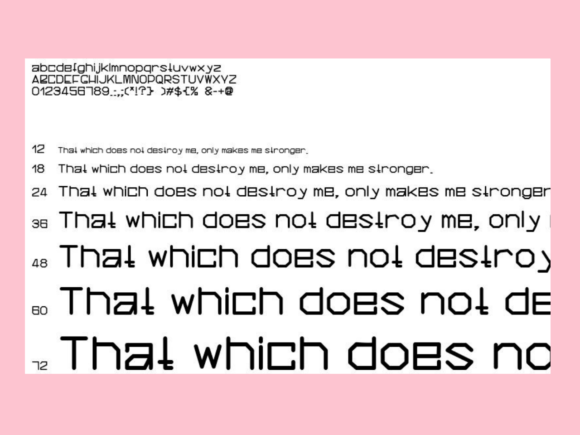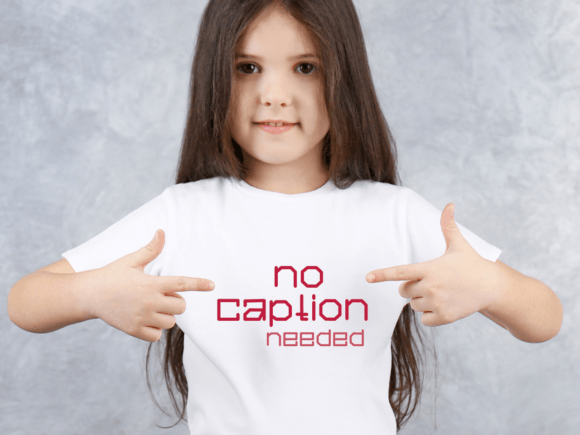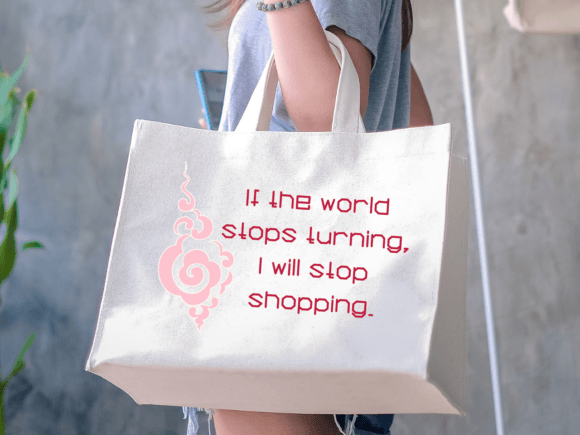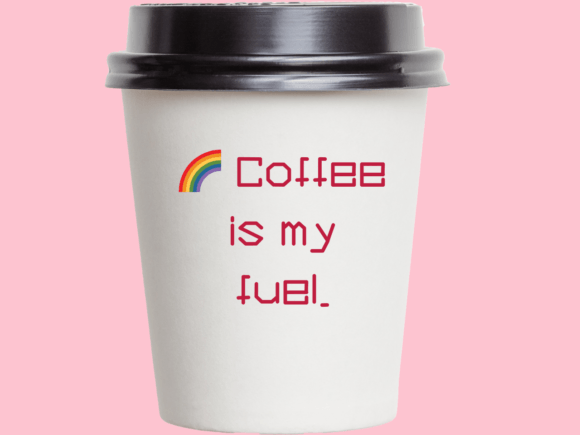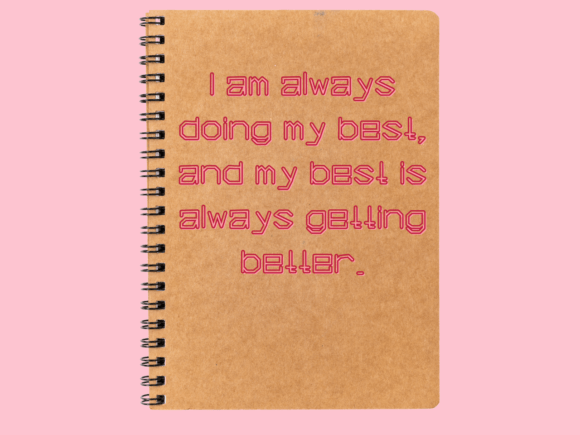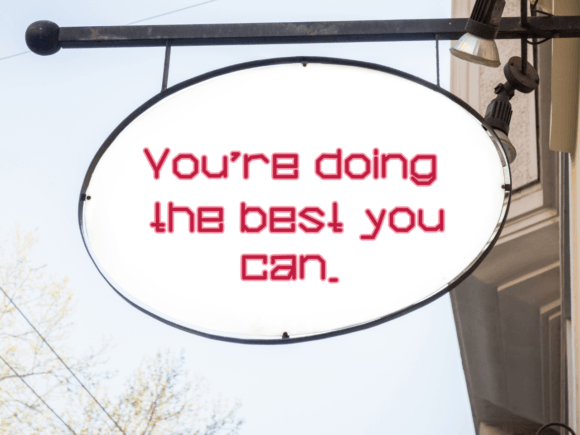
Unleash Your Creativity with Harlan Font: A Unique Display Font
Harlan Font is an incredibly unique display font that has been masterfully designed to become a true favorite among designers and crafters. With its distinctive style and versatility, this font has the potential to bring each of your creative ideas to the highest level. In this article, we’ll dive into the features and benefits of Harlan Font, and explore how it can elevate your designs and take your creativity to new heights.
The Story Behind Harlan Font
Harlan Font is a carefully crafted display font that has been designed to make a statement. Its unique style is characterized by bold lines, elegant curves, and a distinctive flair that sets it apart from other fonts. Whether you’re looking to create a stunning logo, a beautiful poster, or an eye-catching social media graphic, Harlan Font is the perfect choice.
Key Features of Harlan Font
- Unique and Distinctive Style: Harlan Font boasts a one-of-a-kind design that will make your creations stand out from the crowd.
- Versatility: This font is perfect for a wide range of design projects, from logos and posters to social media graphics and more.
- Elegant and Sophisticated: Harlan Font exudes elegance and sophistication, making it perfect for high-end designs and luxury brands.
- Easy to Read: Despite its bold and decorative style, Harlan Font is easy to read and understand, making it perfect for use in a variety of contexts.
Benefits of Using Harlan Font
So why choose Harlan Font for your design projects? Here are just a few benefits of using this incredible display font:
- Adds Visual Impact: Harlan Font is designed to grab attention and make a statement. Use it to add visual impact to your designs and take them to the next level.
- Enhances Brand Identity: With its unique and distinctive style, Harlan Font can help to enhance your brand identity and make your designs instantly recognizable.
- Perfect for Creative Projects: Whether you’re a designer, crafter, or DIY enthusiast, Harlan Font is the perfect choice for creative projects that require a bold and eye-catching font.
How to Use Harlan Font in Your Designs
Using Harlan Font in your designs is easy. Here are a few tips to get you started:
- Experiment with Different Sizes: Harlan Font looks great in a variety of sizes, from large and bold to small and elegant.
- Pair it with Other Fonts: Try pairing Harlan Font with other fonts to create a unique and eye-catching combination.
- Use it for Headlines and Titles: Harlan Font is perfect for use in headlines and titles, where its bold and decorative style can really make an impact.
FAQs About Harlan Font
- What type of font is Harlan Font?: Harlan Font is a display font, perfect for use in headlines, titles, and other creative projects.
- Is Harlan Font easy to read?: Yes, despite its bold and decorative style, Harlan Font is easy to read and understand.